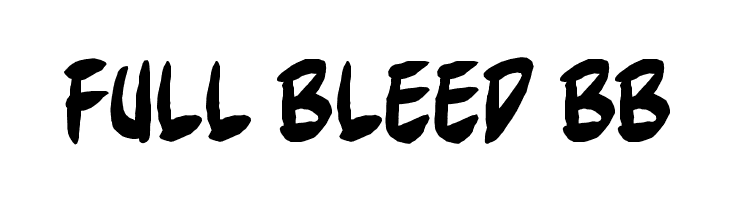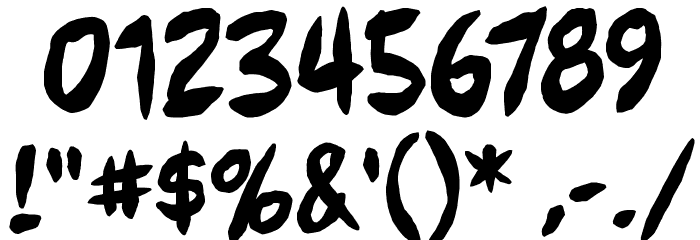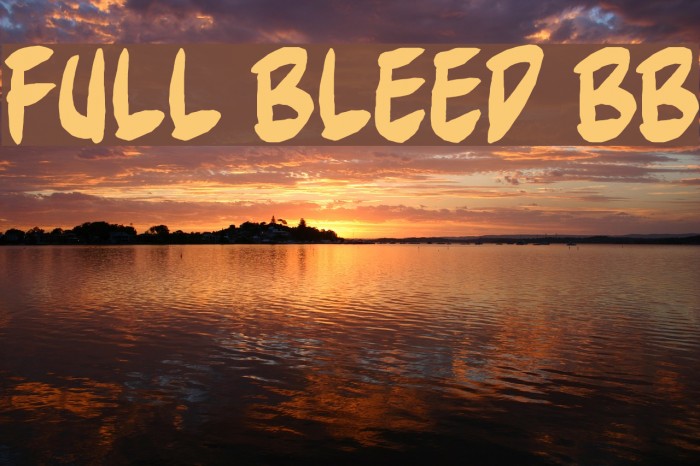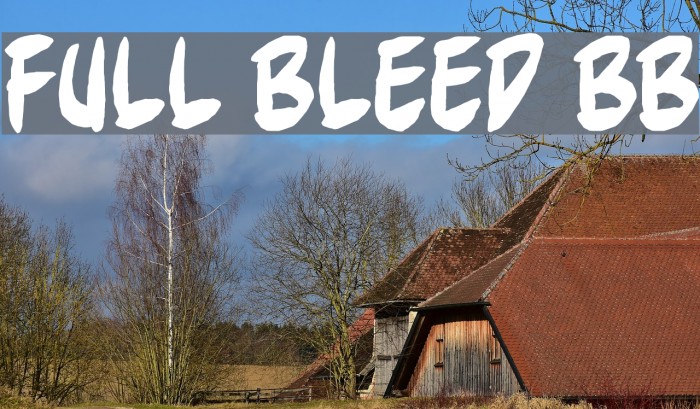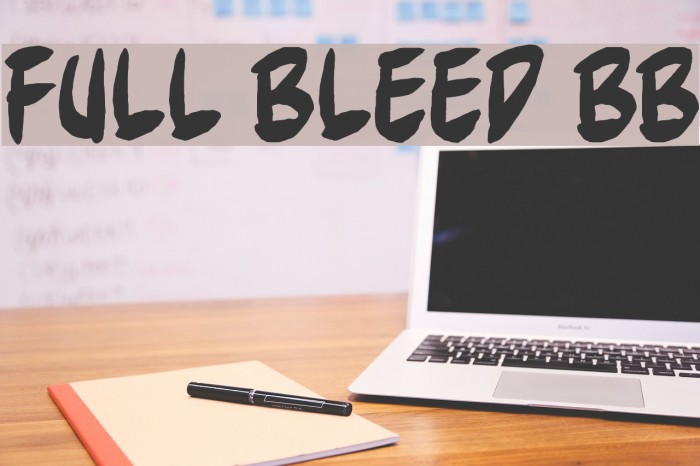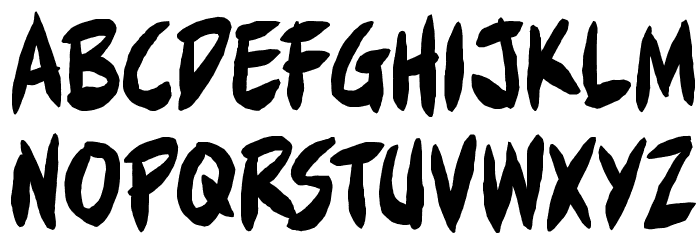
Full Bleed BB Font
This font features a bold, expressive style with a hand-painted appearance. The characters are irregular and dynamic, giving a sense of movement and energy. The strokes are thick and uneven, adding a raw, artistic feel. The uppercase and lowercase letters maintain a consistent style, while the numerals and special characters complement the overall aesthetic. This font is perfect for projects that require a bold, artistic touch.
A bold, hand-painted style font with dynamic, expressive characters.
• Proposed Projects: Ideal for posters, album covers, branding, and any creative projects that need a bold, artistic flair.